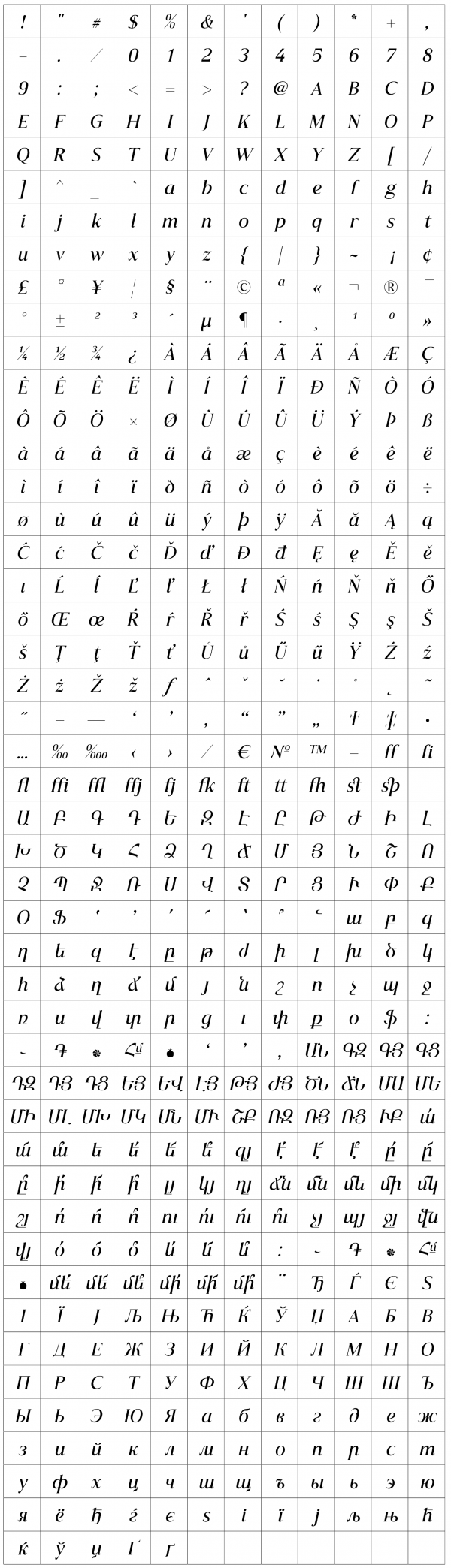
GHEA Akunq Medium Italic
Design date: 2024
Writing systems: Armenian, Latin Central European and Cyrillic.
Styles: 12 (Regular, Medium, SemiBold, DemiBold, Bold, ExtraBold and italics).
The Sans Serif font GHEA Akunq has serifs and soft forms. Can be used as title font, also for poster, books, albums, etc.